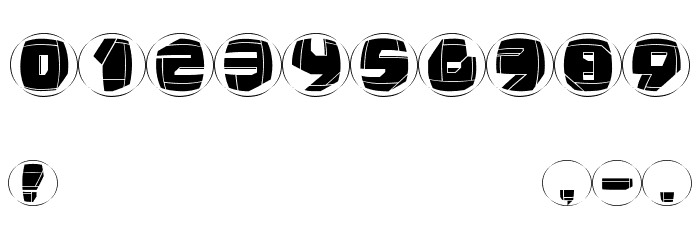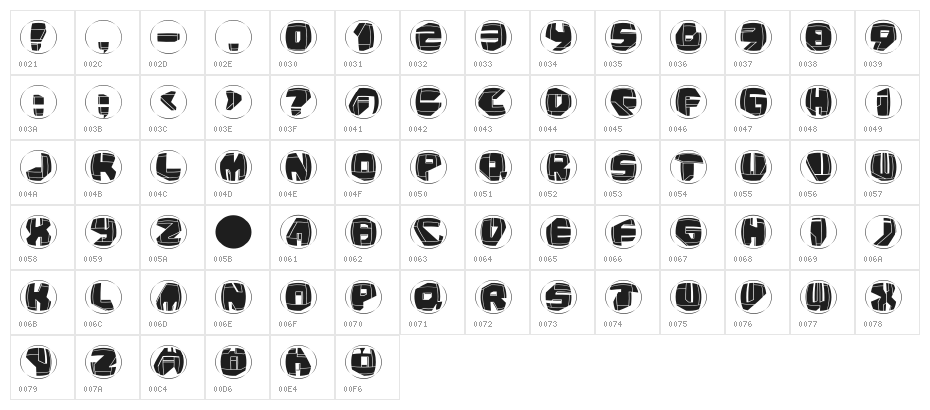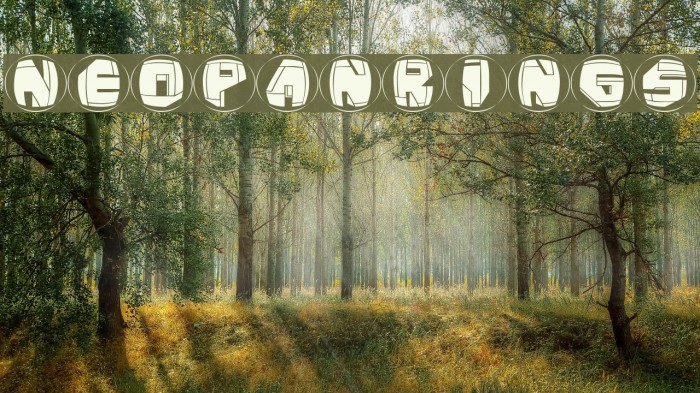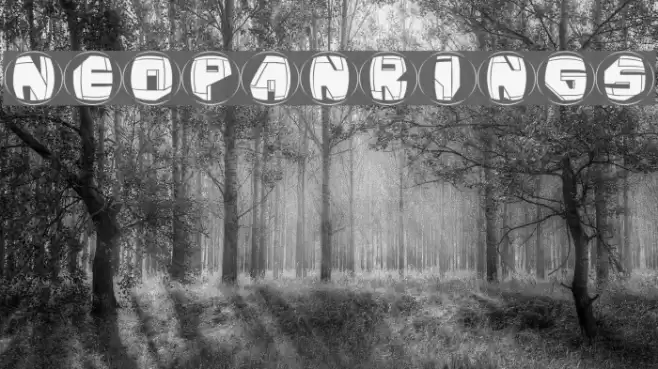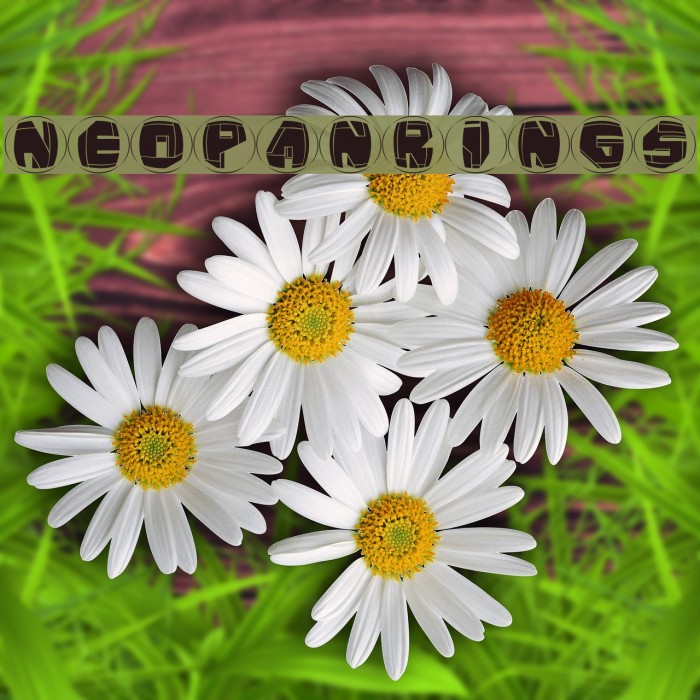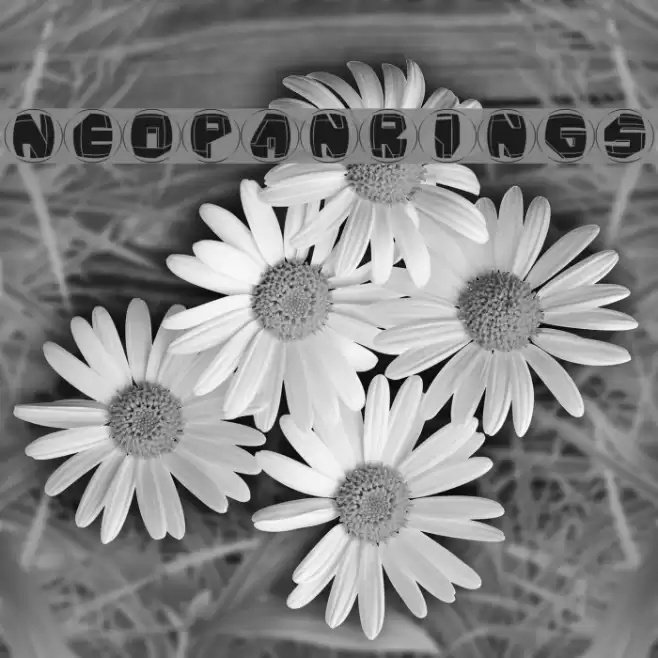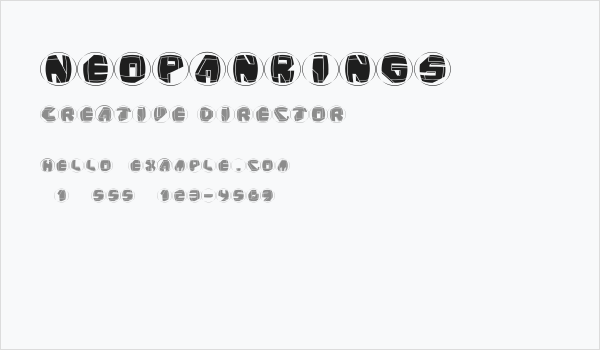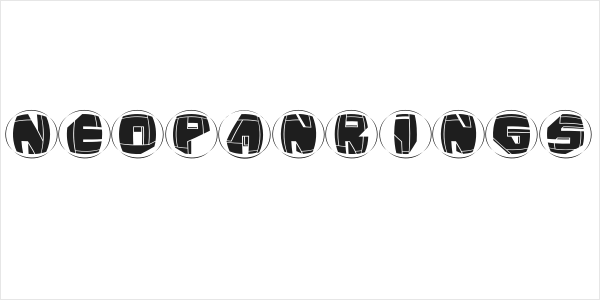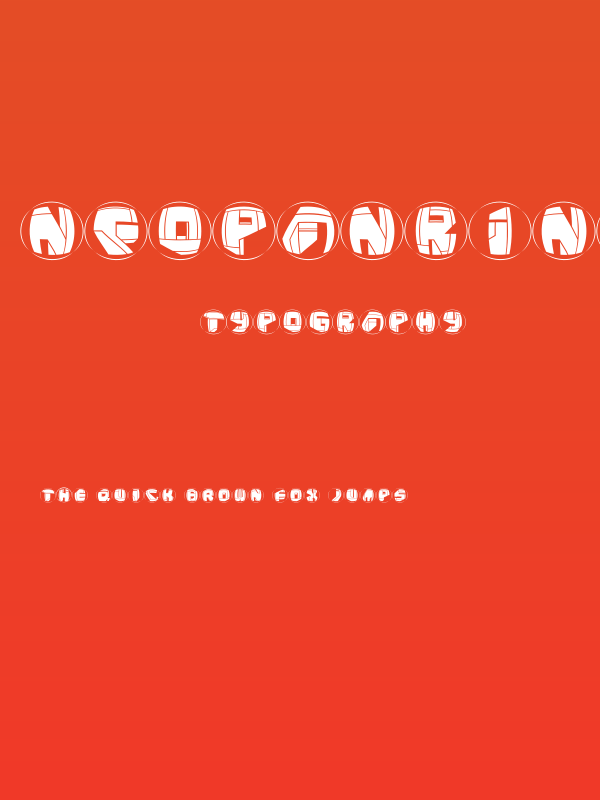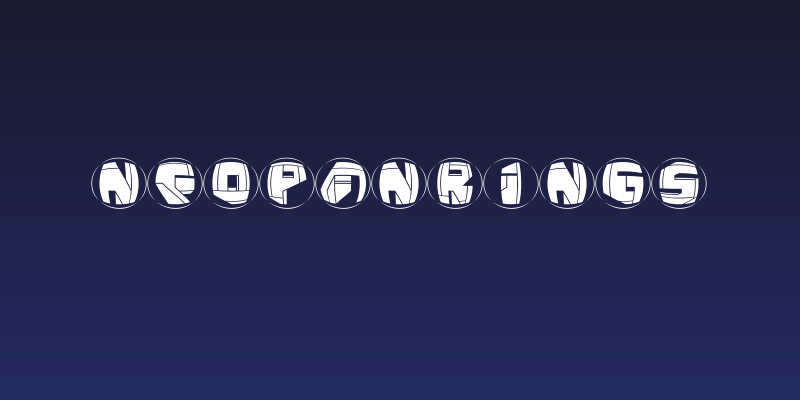
NeoPanRings Font
NeoPanRings Description
This font features a futuristic and geometric design, with each character enclosed within a circular boundary. The letters and numbers are bold and angular, creating a striking visual impact. The use of negative space within the circles adds a unique dimension to the characters, making them stand out. The font's style is reminiscent of digital or sci-fi themes, suitable for modern and tech-oriented designs. The uniformity of the circular enclosures provides a cohesive look, while the bold strokes ensure readability even at smaller sizes. This font is ideal for projects that require a modern and edgy aesthetic.
| Proposed Projects | Ideal for tech branding, sci-fi posters, digital media, and modern graphic design projects. |